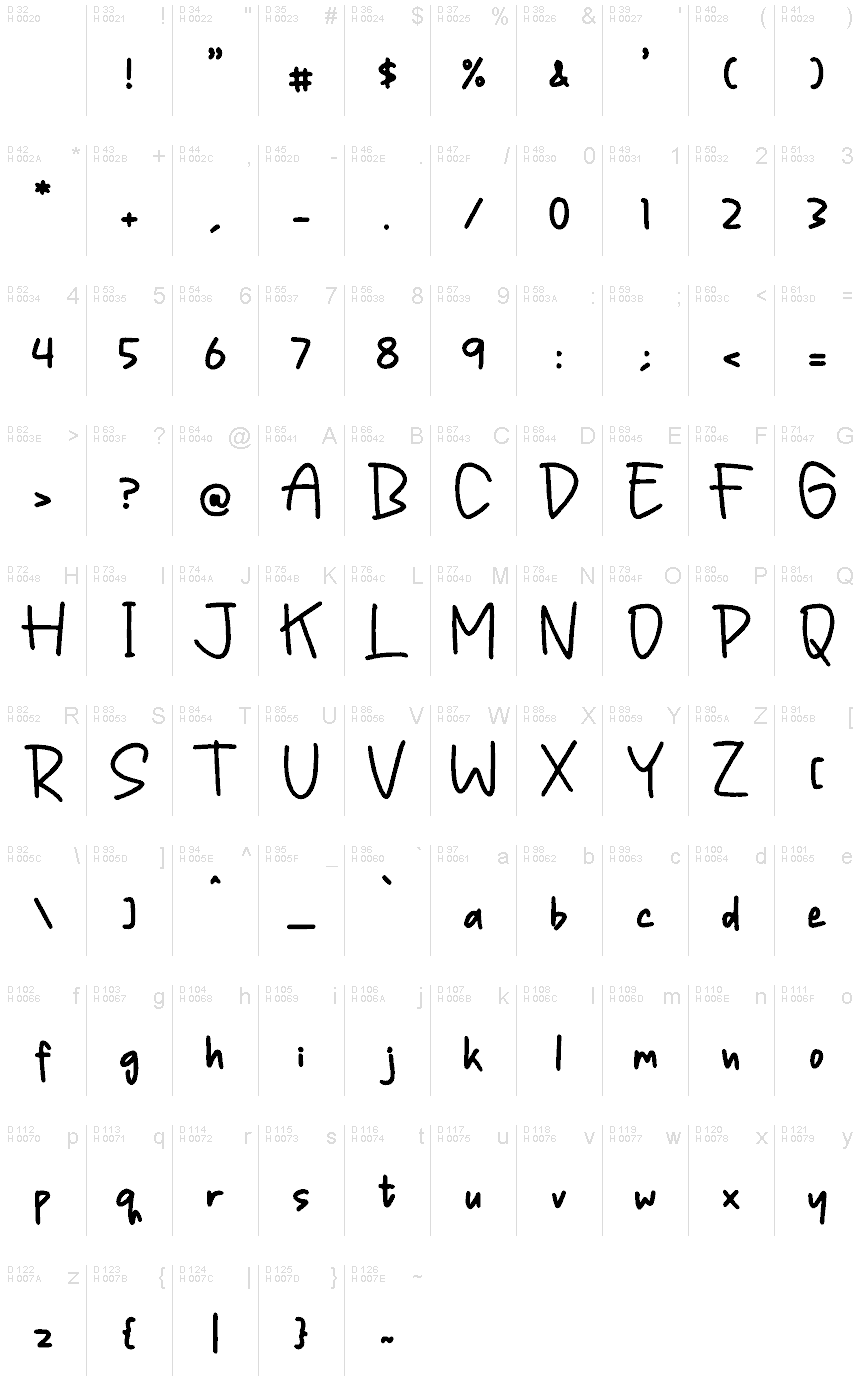
Friday Sunytime
Friday Sunnytime is a handwritten font that belongs to the Friday script family. It was created by Letterena Studios. This is a free OTF font that can be used for a variety of personal and commercial projects. Add this font to your branding, packaging, postcards, logos, headlines, t-shirts, invitations, book titles and much more.